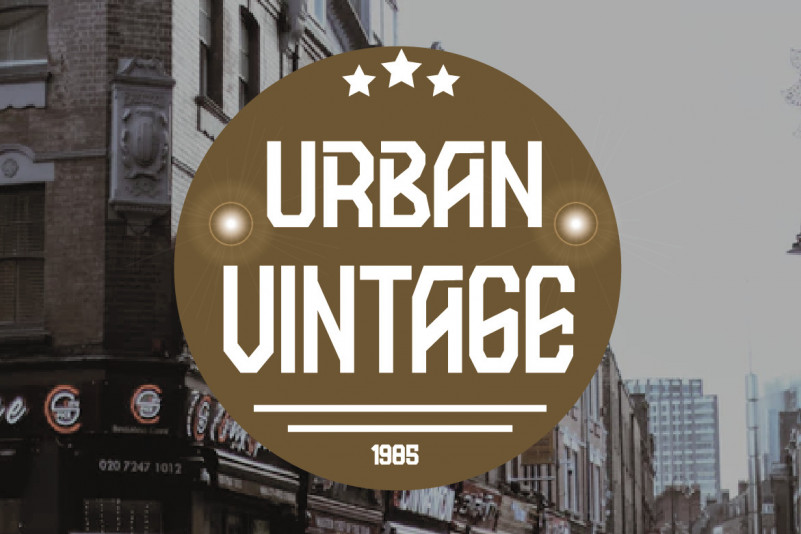
Yangoten Font
Yangoten Display Font
This is an amazing looking and very unique display font. Resembling a digital display, and also very suitable if applied to posters, and others. This font will make any of your design ideas stand out.